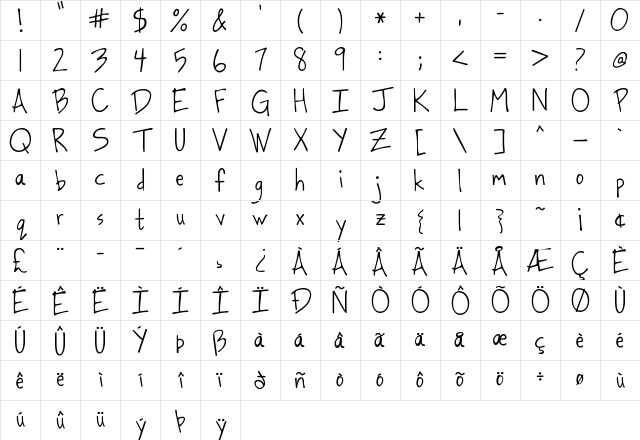
KG Dancing in the Minefields Regular
Foundry: Kimberly Geswein
Designer: Kimberly Geswein
Design Context for KG Dancing in the Minefields
KG Dancing in the Minefields is a composed and adaptable typeface that performs quietly and consistently across a wide range of design contexts.
Pro Tip: Use KG Dancing in the Minefields in both headline and body roles to test its range before committing to a single application.